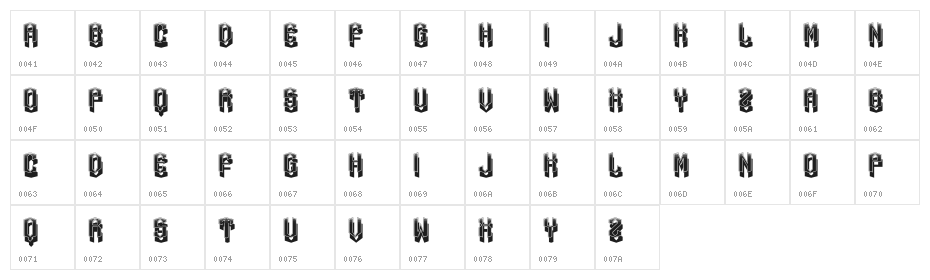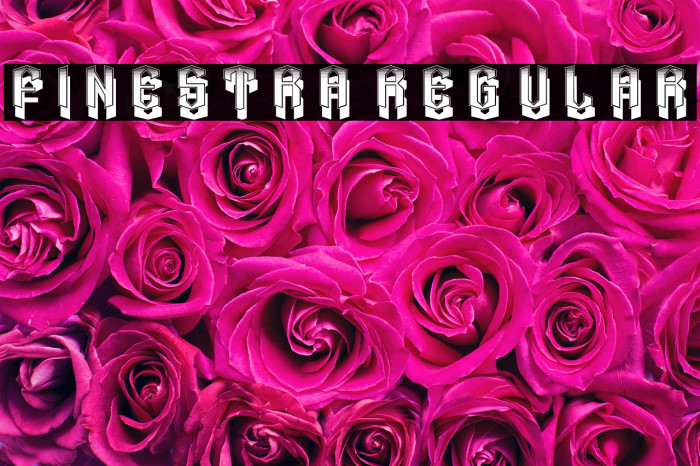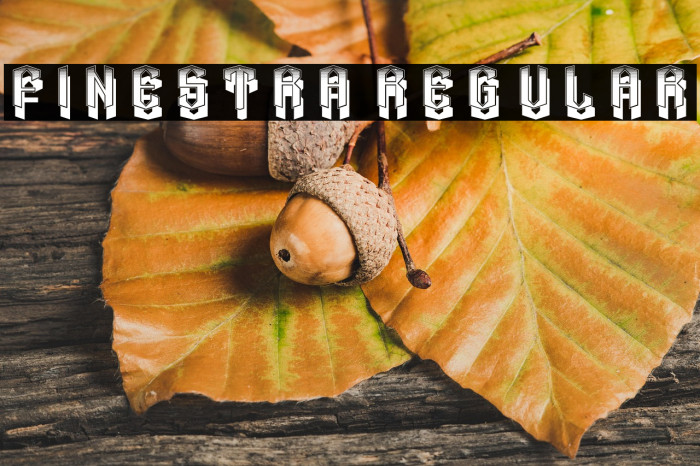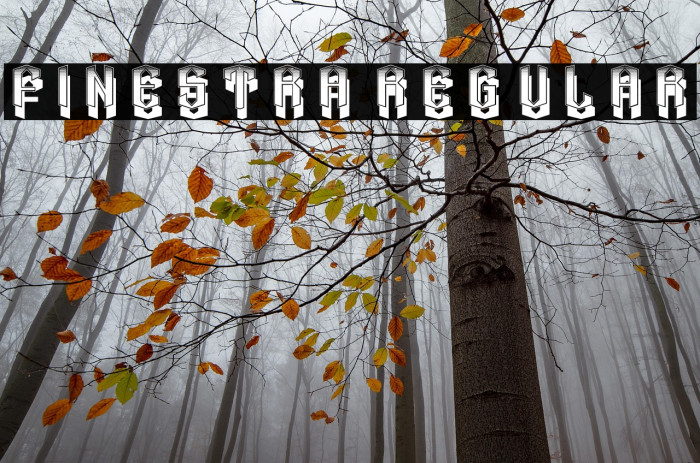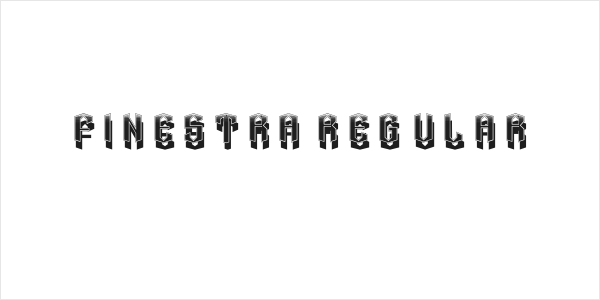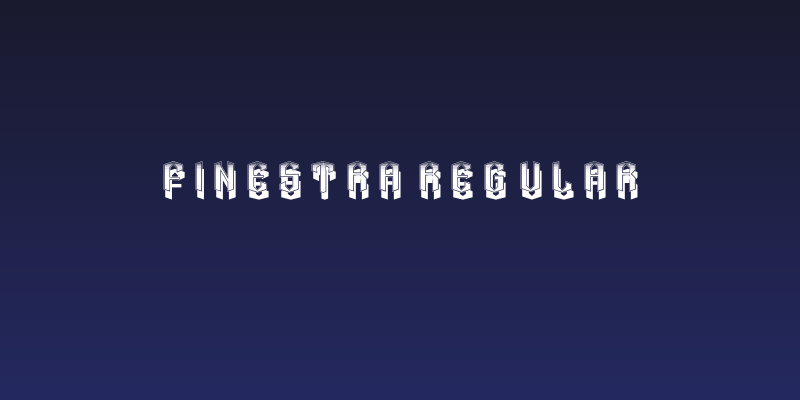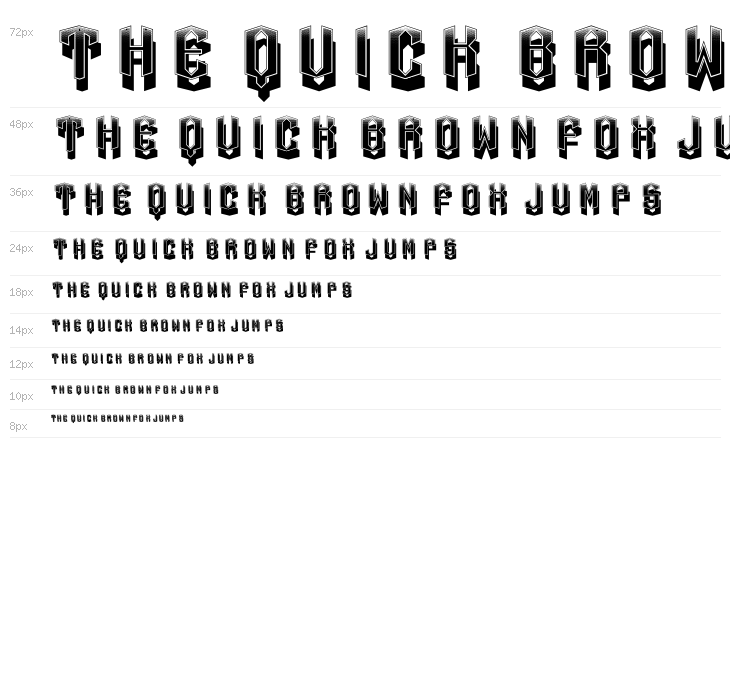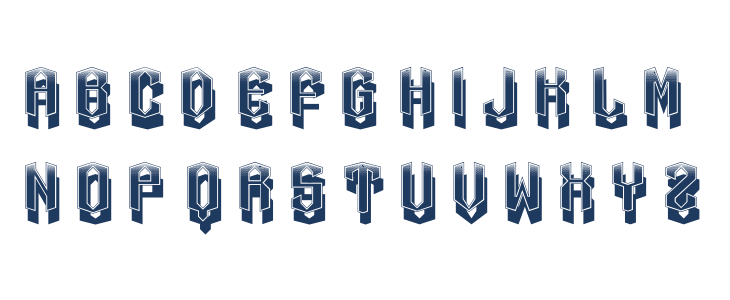
Finestra Regular Font
Finestra Regular Description
This font features a bold, three-dimensional design with a strong geometric influence. Each character is crafted with a blocky, architectural style that gives it a striking, impactful presence. The letters are outlined with a shadow effect, enhancing the 3D illusion and adding depth. The overall appearance is modern and futuristic, making it suitable for projects that require a bold statement. The uppercase letters are particularly prominent, with sharp angles and clean lines that convey a sense of strength and stability.
Proposed ProjectsIdeal for headlines, posters, logos, and any design needing a strong visual impact.